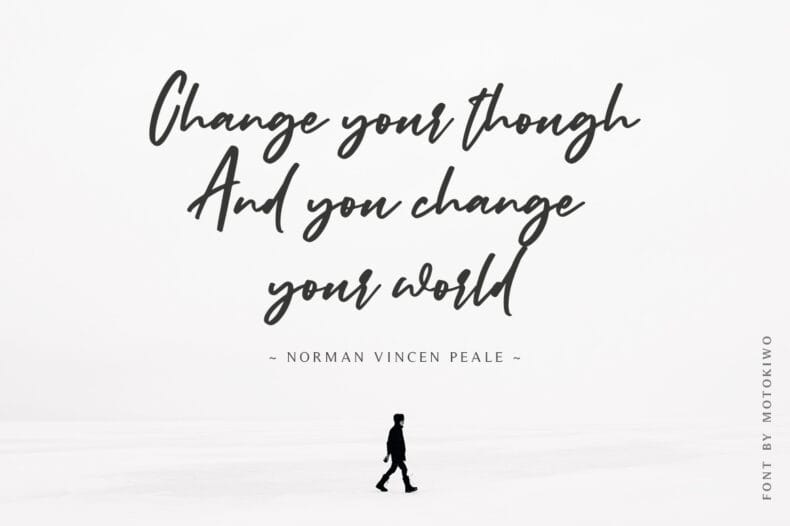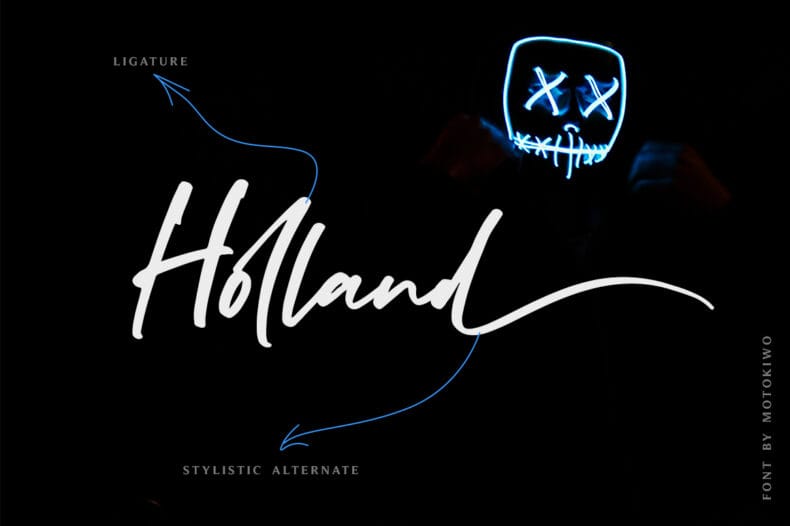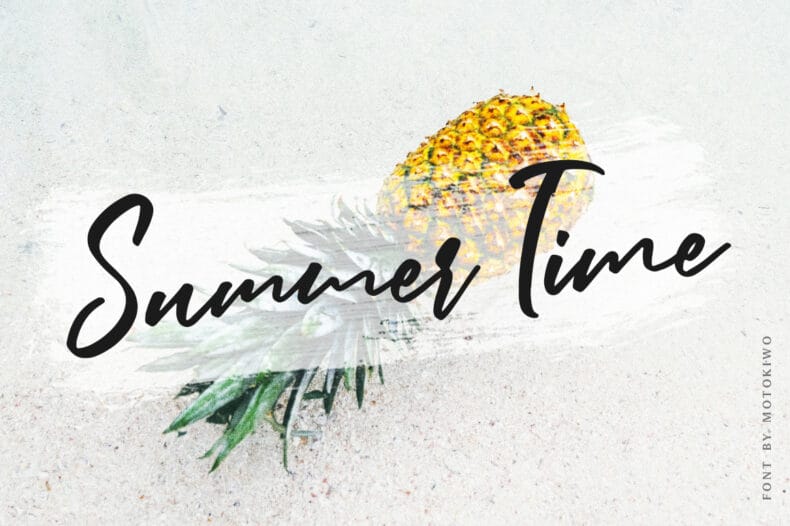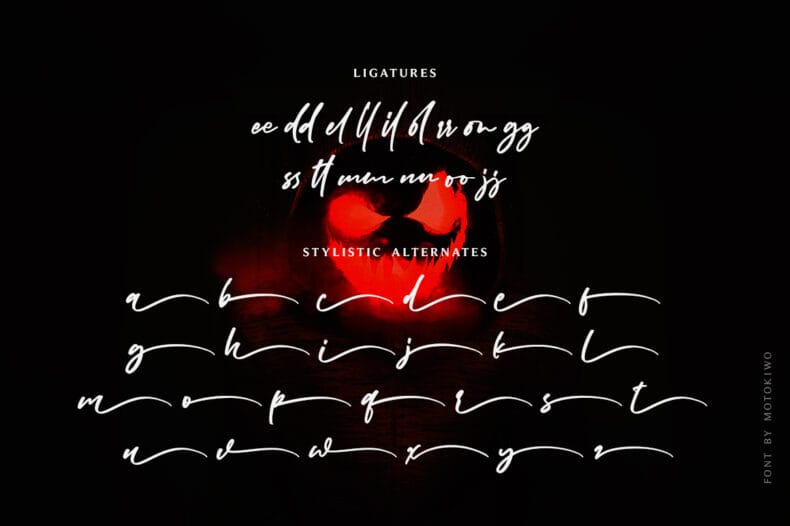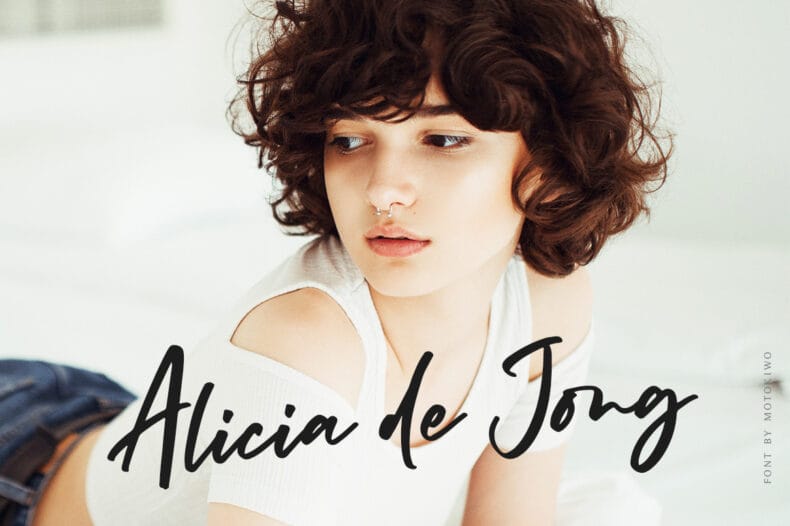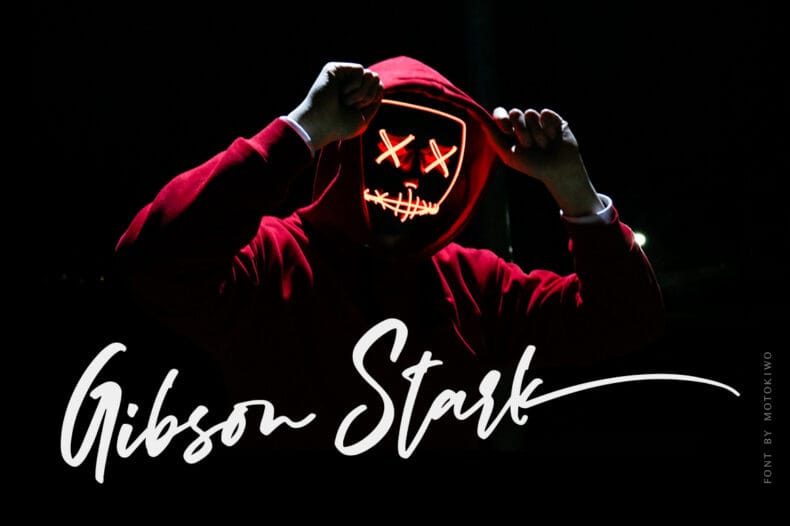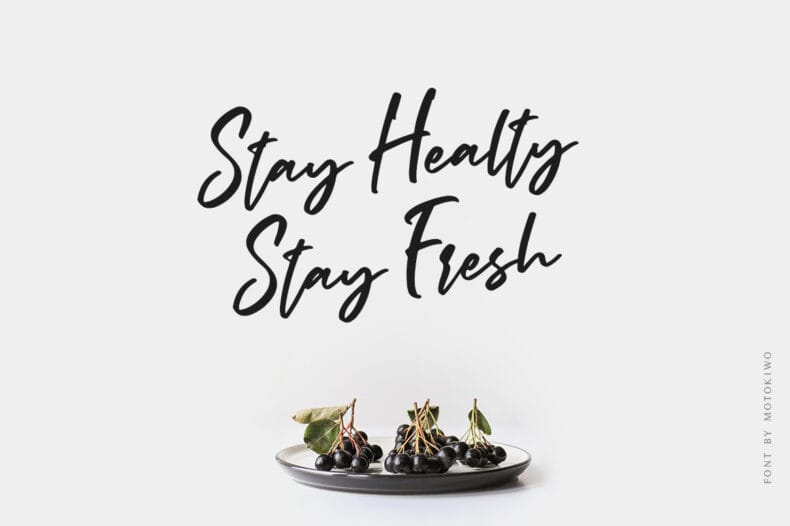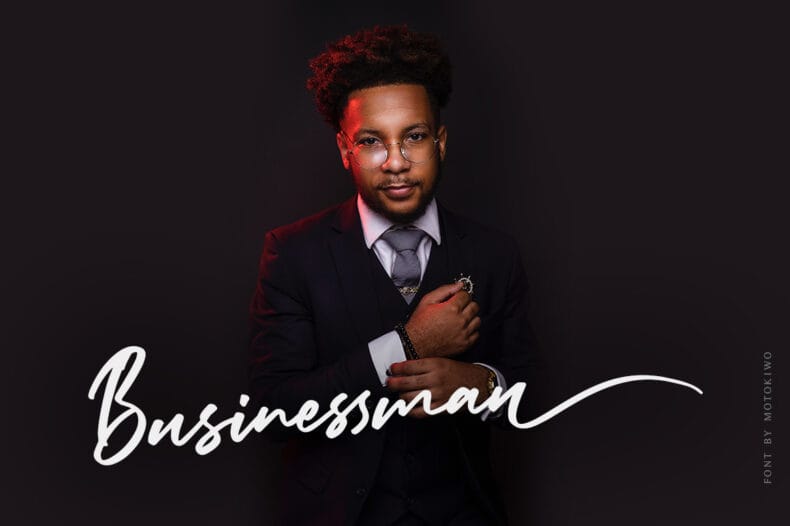
Billybond, Bold Signature Font
Billybond – a bold signature font with stunning ligatures and ending alternates. Billybond suitable for your project that need classy and elegant feels. It’s packed with 15 cool ligatures and ending tails alternates for all lowercase, also support standard multilingual characters and already PUA Encoded.